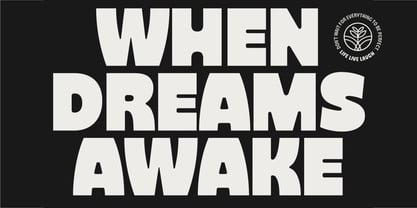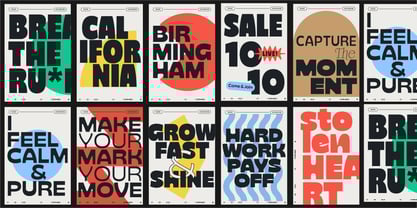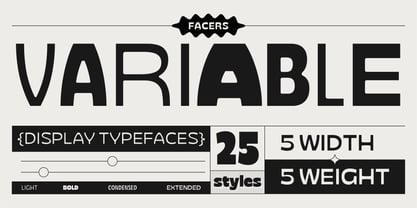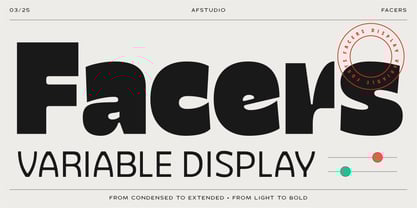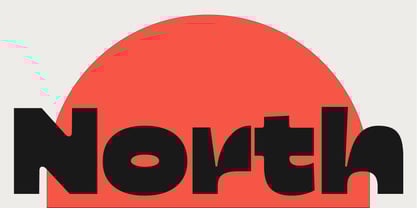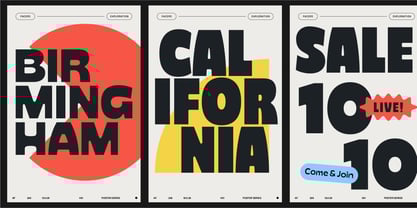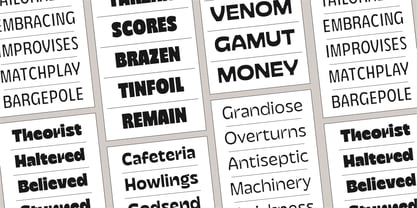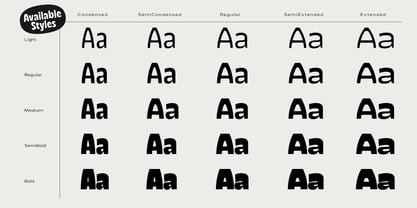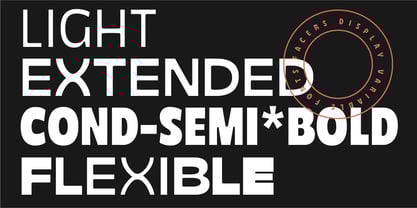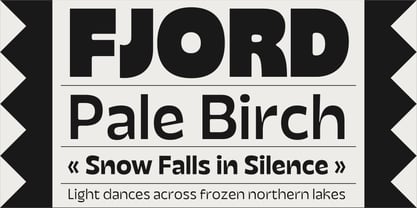
Facers
by Adam Fathony
The Facers Font Family was designed by Adam Fathoni Haris and published by Adam Fathony. Facers contains 26 styles and family package options.
Facers — Bold. Playful. Unstoppable.
Introducing Facers, a powerful variable display typeface designed to stand out, shout loud, and leave a lasting impression.
With 25 styles spanning 5 widths and 5 weights, Facers is your all-in-one tool for crafting dynamic, expressive, and ultra-modern design. Whether you're working on editorial spreads, posters, packaging, branding, or digital content — Facers flexes to fit your boldest ideas.
• 25 Styles Total
From Light Extended to Bold Condensed, switch up widths and weights effortlessly.
• Fully Variable
Customize weight and width on the fly for responsive design, animation, or precise layout control.
• Loud and Proud Display Style
Built for attention-grabbing headlines, punchy titles, and typographic posters that turn heads.
• Retro Meets Modern
Combines vintage display charm with a clean, contemporary edge.
• Perfect for Branding & Editorial
Ideal for lifestyle, fashion, tech, coffee, music, culture, and everything in between.
• Stylish Ligatures & Alternates
A touch of personality to take your typography to the next level.
Use Facers For:
• Bold editorial layouts
• Social media & promo graphics
• Eye-catching product packaging
• Music/event posters
• Trendy branding systems
• Motion graphics & animation